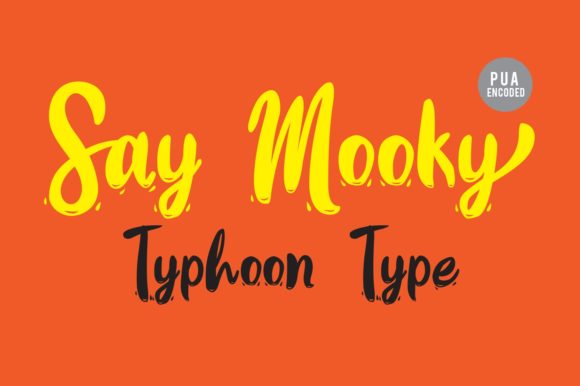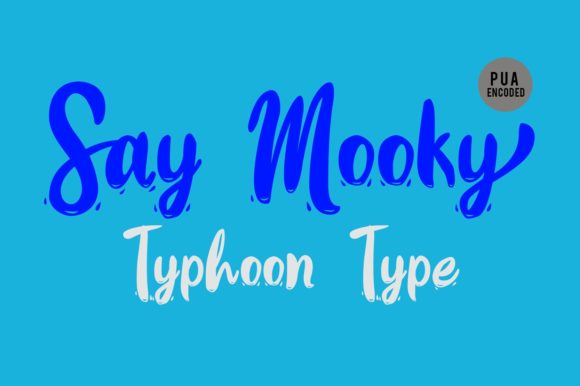
Say Mooky Font
About Say Mooky Font
Say Mooky is a gorgeous and fresh script that radiates life. Ignite your creativity with this powerful and dynamic looking script!